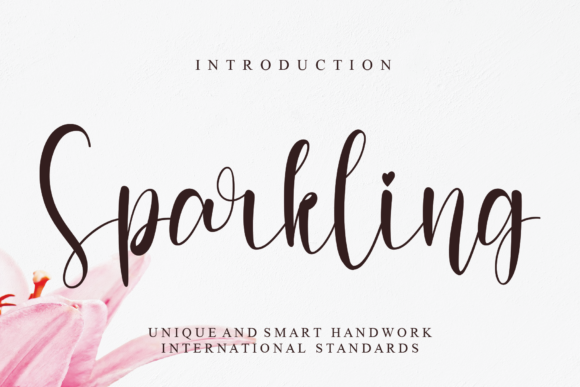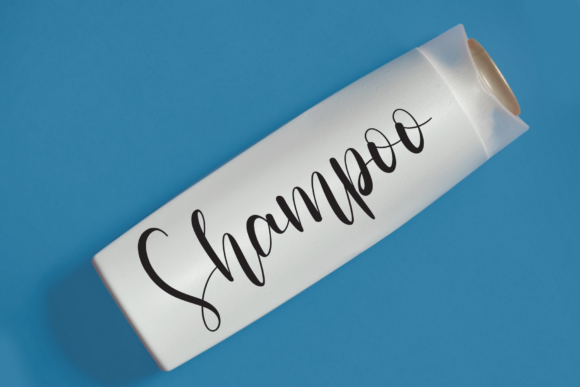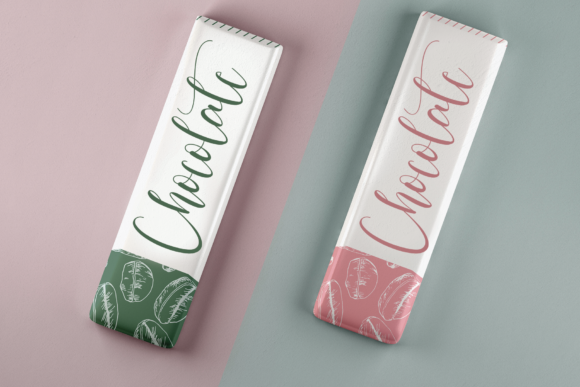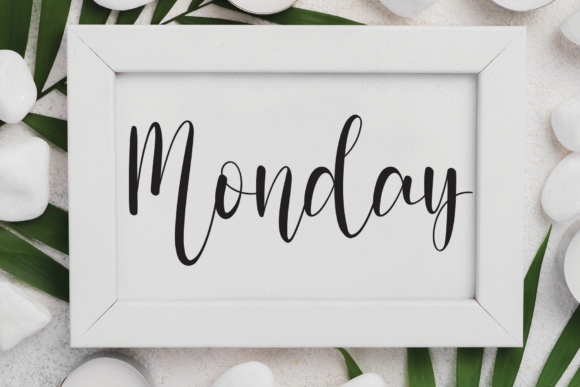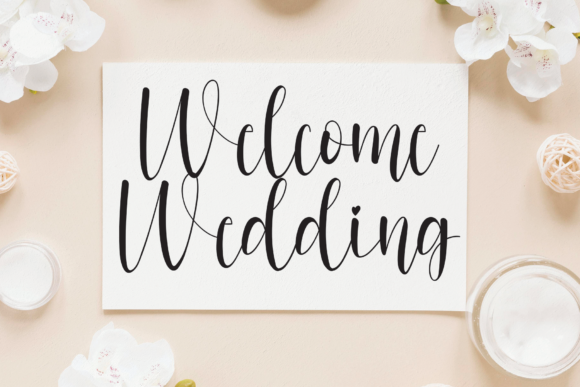
Sparkling Font
About Sparkling Font
Sparkling is an attractive and playful handwritten font. With its carefully crafted characters, this typeface is a great fit for a variety of projects ranging from creative watermarks and photography to labels or business cards!